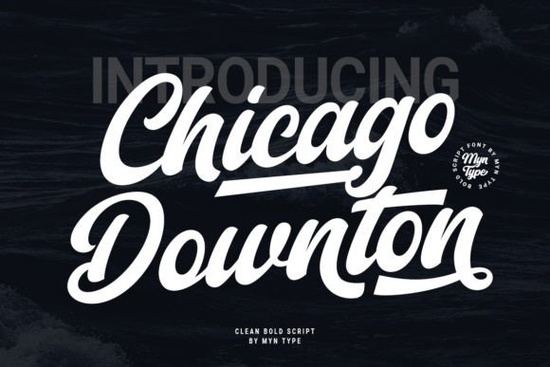
The Chicago Downton Font is a bold script typeface that blends a classic baseball font feel with a vintage script style. If you're looking for a typeface that brings energy and character to posters, logos, t-shirt designs, or social media graphics, this one delivers. It's built for display use, meaning it shines at larger sizes where its thick strokes and swooping curves can really show off.
Whether you design for fun or run a small business, choosing the right script font makes a real difference. The Chicago Downton Font stands out because it doesn't try to be subtle it's confident, joyful, and full of personality. Let's take a closer look at what makes it worth adding to your font library.
What Makes the Chicago Downton Font Different From Other Script Fonts?
Plenty of script fonts look elegant or delicate. Chicago Downton goes a different direction. It pulls from the bold, blocky lettering you'd see on vintage baseball jerseys and mixes that with flowing script connections between letters. The result is a typeface that feels both athletic and decorative at the same time.
This combination works especially well when you want text that grabs attention immediately. Think about:
- Sports-themed designs and team logos
- Event posters and flyers
- Merchandise like t-shirts, mugs, and hats
- Social media headers and promotional graphics
- Greeting cards with a fun, retro vibe
Who Is This Font Best For?
This font works well for a wide range of creators:
- Print-on-demand sellers Bold display fonts sell well on t-shirts, tote bags, and drinkware. The vintage baseball aesthetic has a loyal customer base.
- Small business owners If you run a barbershop, sports bar, or any brand with a classic Americana feel, this font fits naturally into your branding materials.
- Crafters and hobbyists Using Cricut or Silhouette? A bold script like this cuts cleanly and reads well on physical projects.
- Designers building font pairings Pair it with a clean sans-serif for body text, and you have a strong visual hierarchy.
How to Use the Chicago Downton Font in Your Projects
Here are a few practical tips for getting the most out of this typeface:
- Use it at larger sizes. This is a display font. It's designed to be seen, not to disappear into a paragraph. Set it at 36pt or above for best results.
- Give it breathing room. Bold scripts look crowded when letters are too tight. Add a bit of tracking or letter spacing to let each character stand out.
- Keep your backgrounds simple. Because the font is already detailed and textured, a clean background helps it pop without visual clutter.
- Pair it wisely. Use a simple sans-serif like Montserrat or Open Sans for any supporting text. This keeps the focus on the headline.
What Fonts Pair Well With Chicago Downton?
Since Chicago Downton is a bold, ornate script, you want complementary fonts that stay out of its way. Here are a few pairing ideas:
- Body text: A clean, geometric sans-serif like Bebas Neue or Lato
- Subheadings: A simple structured typeface like Letterland Font
- Accent text: A light, stylish script for short phrases or signatures
The goal is contrast. You want the viewer's eye to go straight to the bold script headline, then flow naturally into simpler supporting text.